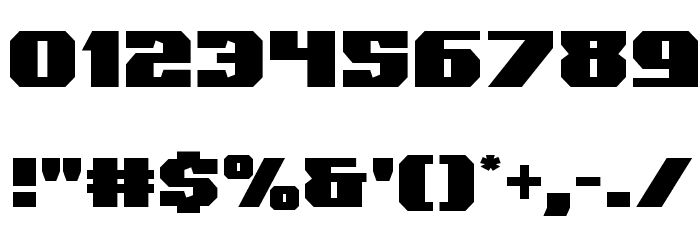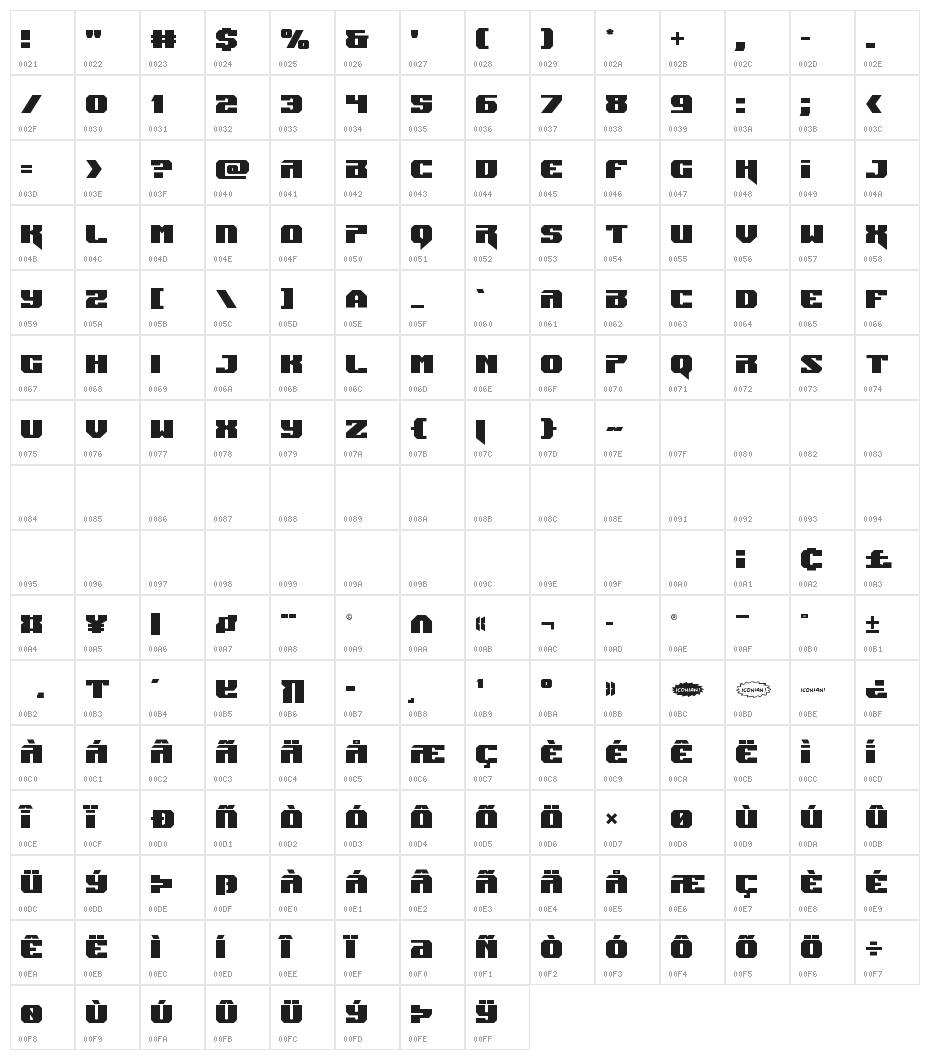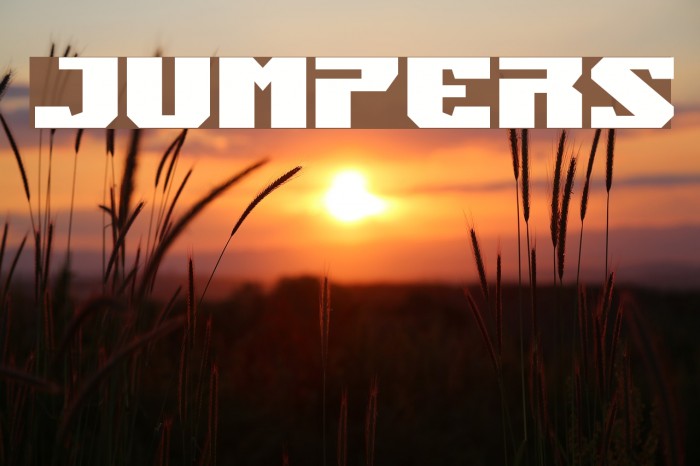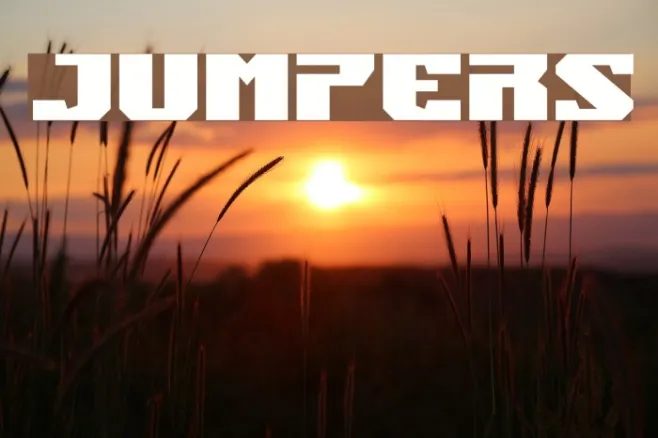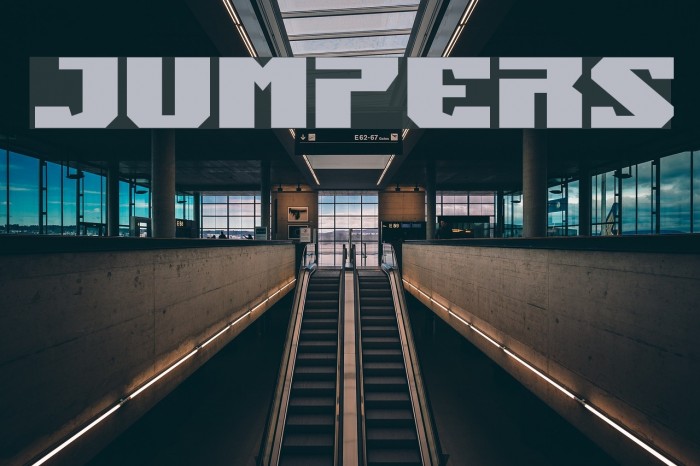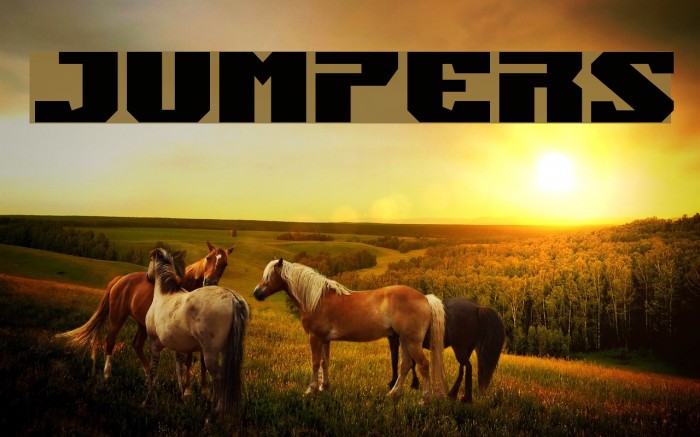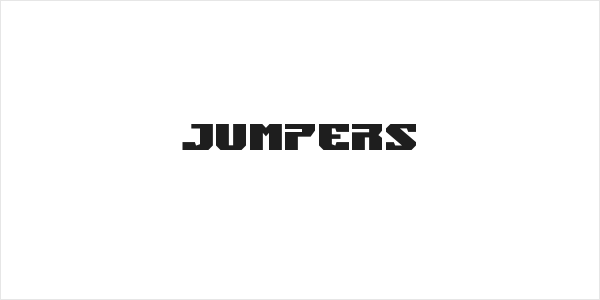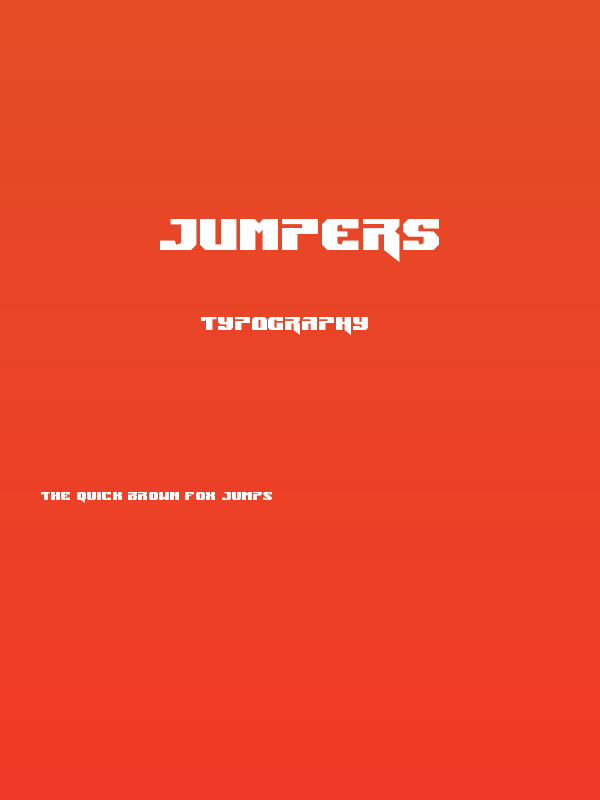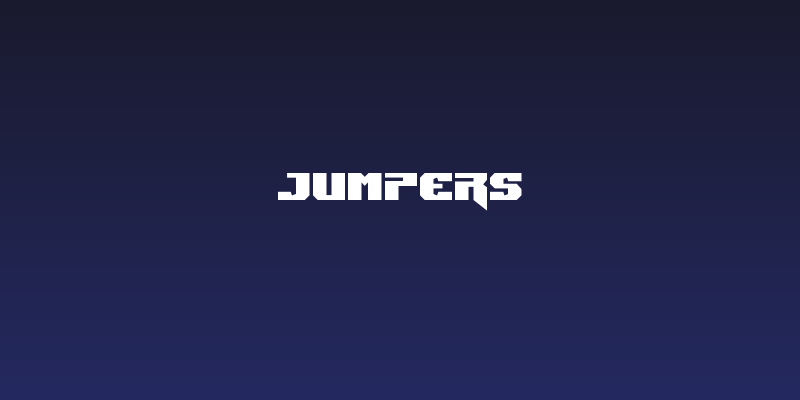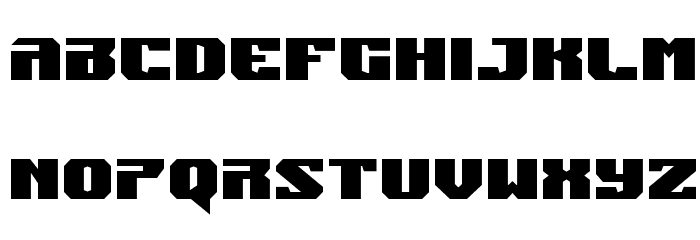
Jumpers Font
Jumpers Description
This font features a bold, geometric design with sharp angles and a blocky appearance. The characters are uniformly thick, creating a strong visual impact. The uppercase letters are particularly striking, with a futuristic and industrial feel. The numbers and special characters maintain this bold style, ensuring consistency across all glyphs. The font's design is both modern and edgy, making it suitable for attention-grabbing headlines or logos. Its unique style is reminiscent of digital or sci-fi themes, with a touch of retro gaming aesthetics.
| Proposed Projects | Ideal for sci-fi themed posters, video game titles, tech company logos, or any project needing a modern, edgy look. |